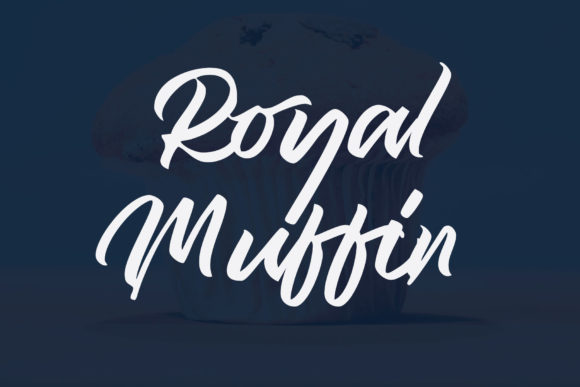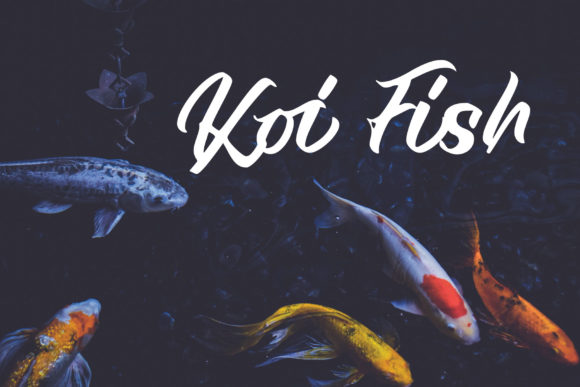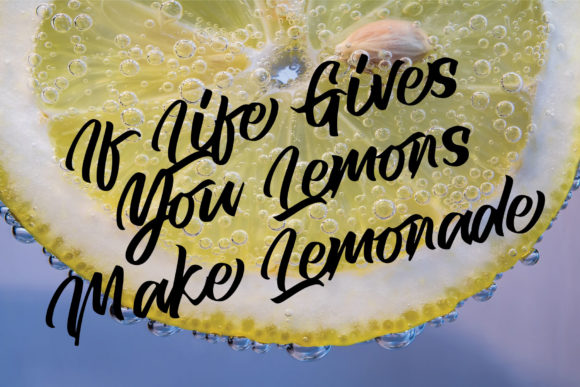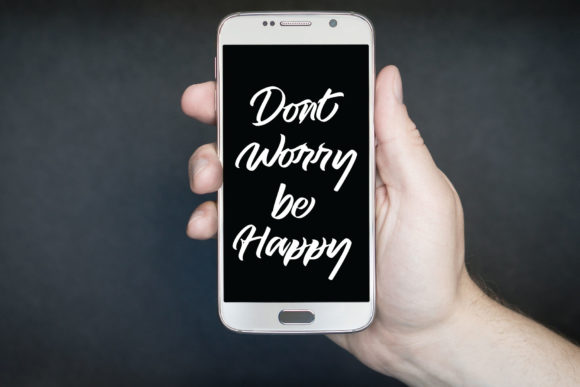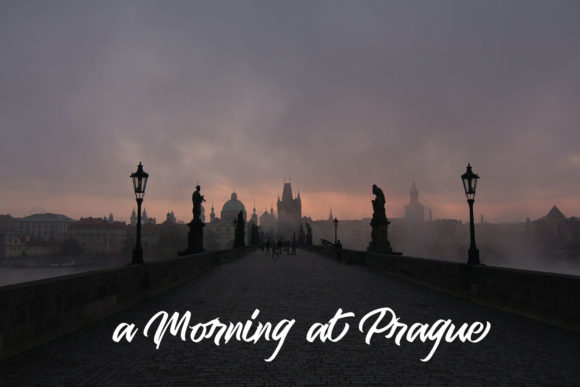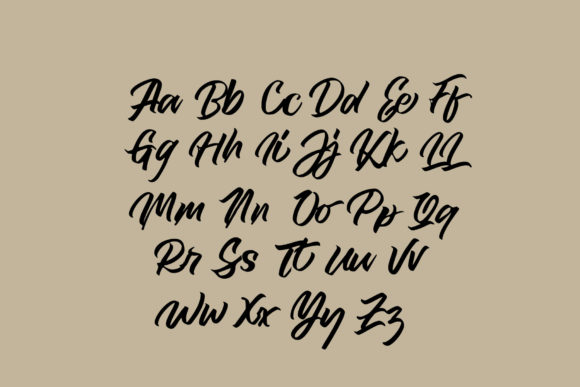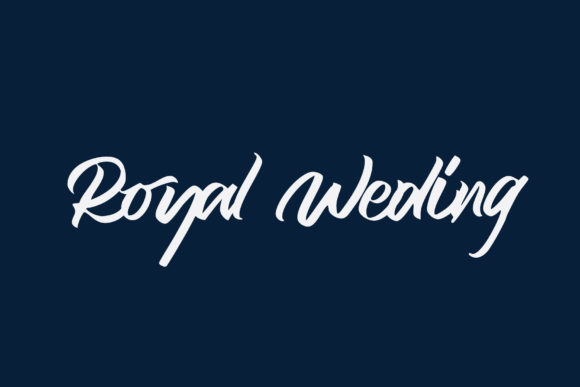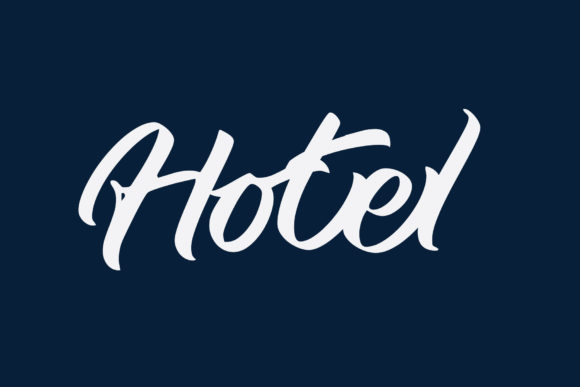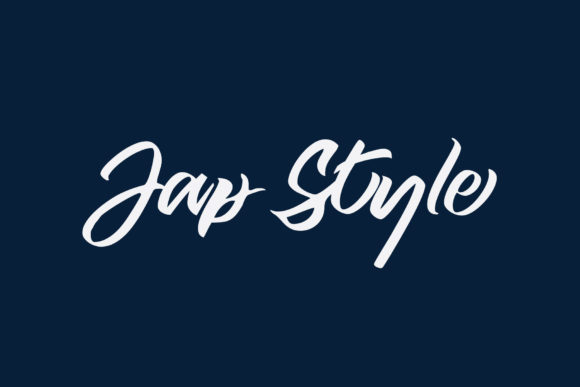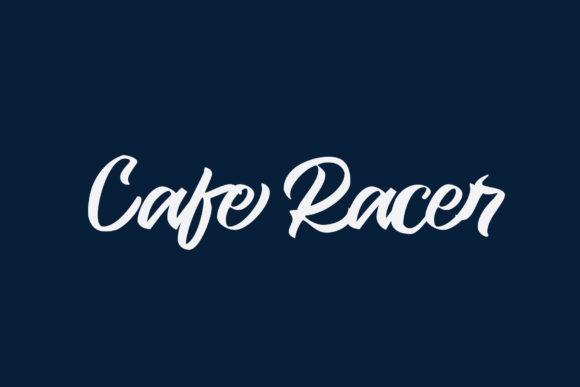
HomeScript FontsRoyal Muffin Font Script Fonts Royal Muffin Font FacebookXPinterestWhatsApp Royal Muffin Font Poster 2 Royal Muffin Font Poster 3 Royal Muffin Font Poster 4 Royal Muffin Font Poster 5 Royal Muffin Font Poster 6 Royal Muffin Font Poster 7 Royal Muffin Font Poster 8 Royal Muffin Font Poster 9 Royal Muffin Font Poster 10 Royal Muffin Font Poster 11 Royal Muffin Font Poster 12 Royal Muffin Font Poster 13 Royal Muffin Font Poster 14 About Royal Muffin Font Royal Muffin is a classy handwritten font with a unique charm. It will elevate any crafts project! DOWNLOAD ON CREATIVE FABRICAThis font is sold and delivered by Creative Fabrica. Font Canyon may earn a commission if you buy through this link. People also explored Vigor Font Rasa Italia Font Festive Font Betawi Font Fahrenheit Font Moenna Font Saturday Font Mercury Script Astario Font 375 0 TagsRoyal Muffin Font Previous articleAlica FontNext articleTiger Walk Font LEAVE A REPLY Cancel reply Comment: Please enter your comment! Name:* Please enter your name here Email:* You have entered an incorrect email address! Please enter your email address here Website: Save my name, email, and website in this browser for the next time I comment. Personal Use Free Houstonville Personal Use Free Read more about this font Single Sleeve Personal Use Free Read more about this font Marthissa Personal Use Free Read more about this font Hommy You Personal Use Free Read more about this font BLOG Using Fonts in Digital Marketing: Tips to Strengthen Your Brand Identity In the realm of digital marketing, every visual element plays a crucial role in shaping a brand's identity, and fonts are no exception. The... Free vs Paid Fonts: Why Investing in Premium Fonts Is Worth It To increase your work productivity, choose the most readable fonts. How to Install and Use Fonts on Windows, macOS, and Web Projects